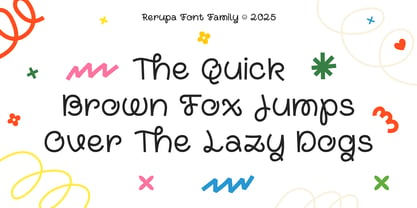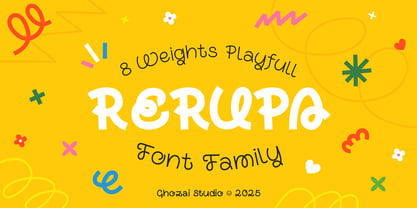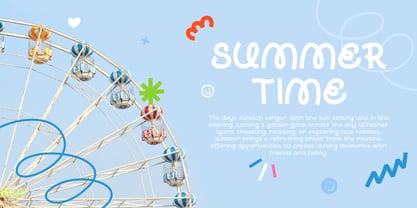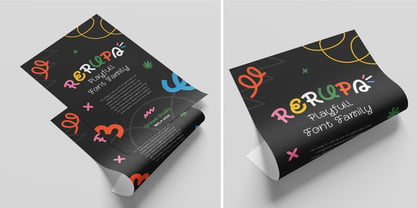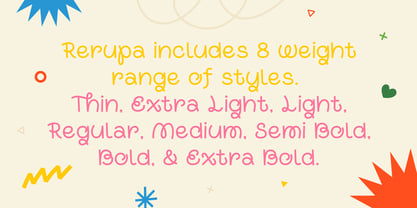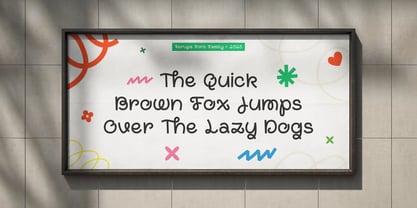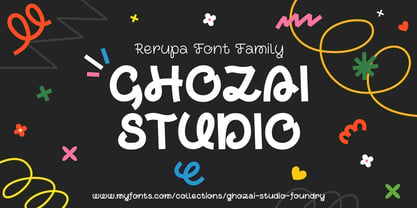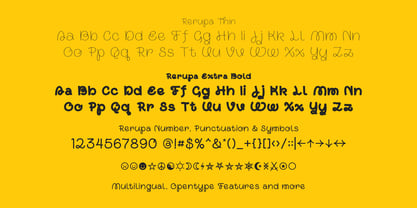
Rerupa
by Ghozai Studio
The Rerupa Font Family was designed by Manzur Ghozaali and published by Ghozai Studio. Rerupa contains 8 styles and family package options. More about this family
Rerupa is an experimental, playful font family that features 8 weights, ranging from Thin to Extra Bold. With a wide variety of weights, OpenType features, and multilingual glyph support, Rerupa ensures versatility across different languages and design needs. Its fun, hadwritting style, and fluid design makes it ideal for a variety of applications, including display, coffe and bread shop branding, signage, festival poster, and more. Whether creating impactful headlines, distinctive logos, or clear signage, Rerupa delivers both style and functionality. Its flexibility allows it to adapt to different design styles, making it the perfect choice for any project that requires a bold and contemporary touch.
Designers: Manzur Ghozaali
Foundry: Ghozai Studio
Rerupa
About Ghozai Studio
Ghozai Studio is a design studio based in Jombang, Indonesia, founded by Manzur Ghozaali. We always try to create a high-quality diverse range of fonts that can be seamlessly integrated into any design project. We also believe that the process of creating a product should be enjoyable and fun. We know that when we have fun during the creation process, we can produce products that are more innovative and engaging for our customers.